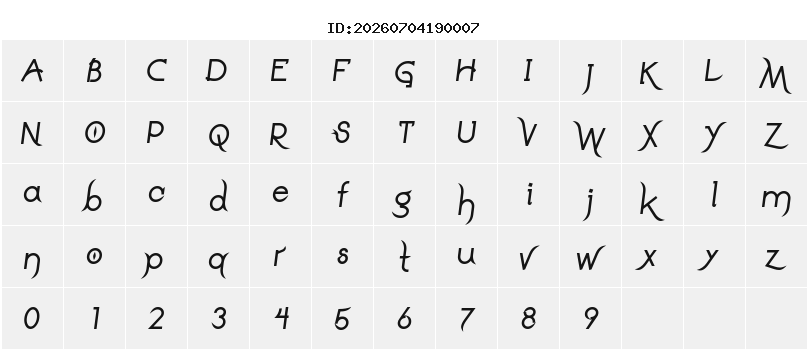
Drakoheart Leiend Preview
• Font Name: Drakoheart Leiend
• Full Font Name: DrakoheartLeiendGruesaInclinada
• Designer: Yun González
About Drakoheart Leiend.ttf
Drakoheart Leiend.ttf is a modern, elegant sans-serif font designed for ultimate readability and visual harmony. Perfect for branding, headlines, web design, and print materials.